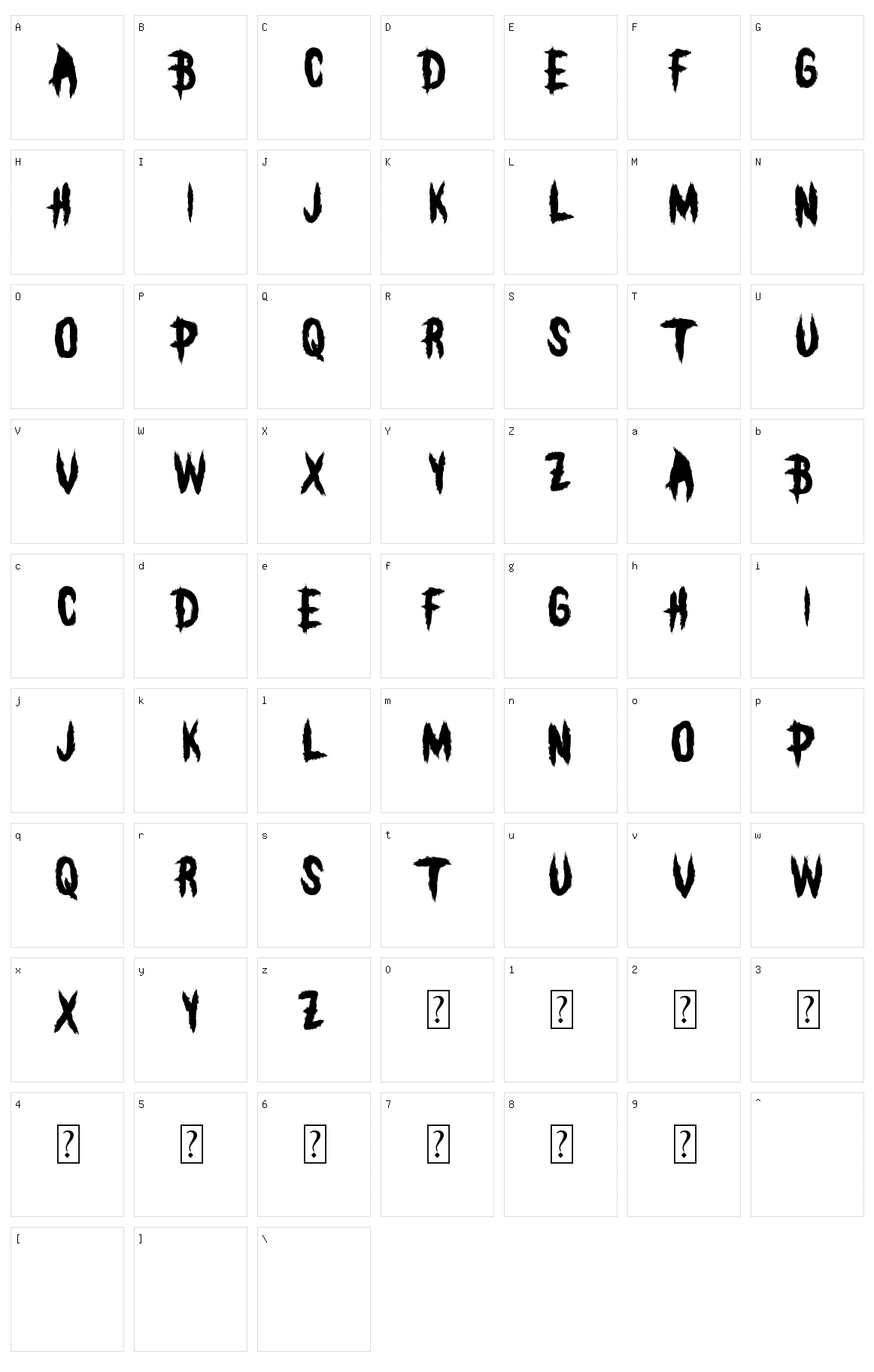
The free font Bleeech is carefully designed by Tim Swim, showcasing a thoughtful balance of creativity and usability and falls under the Horror font style. When you download the ZIP file, it contains only 253.01 KB of font files, making it lightweight and quick to download. Please review the license details below to understand permitted usage and distribution rights. If license information is not available, we recommend using this font for personal projects only or contacting the author directly for commercial usage permissions.